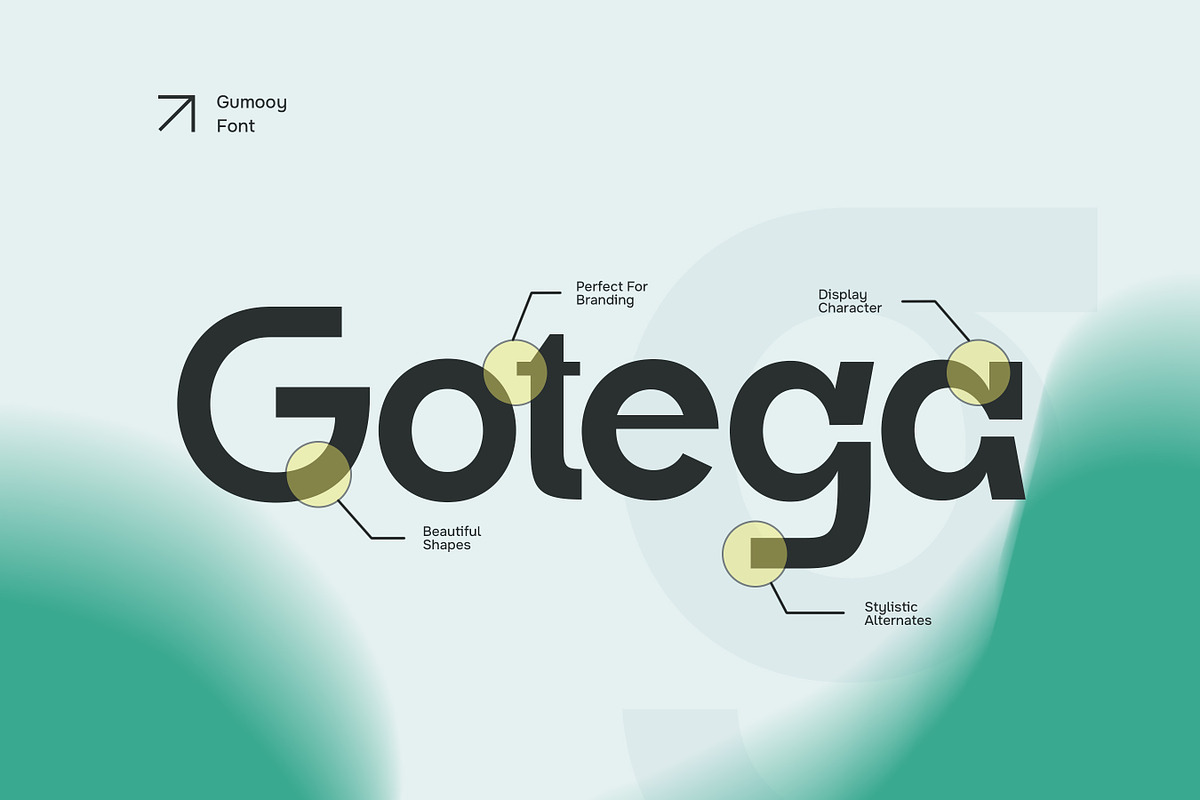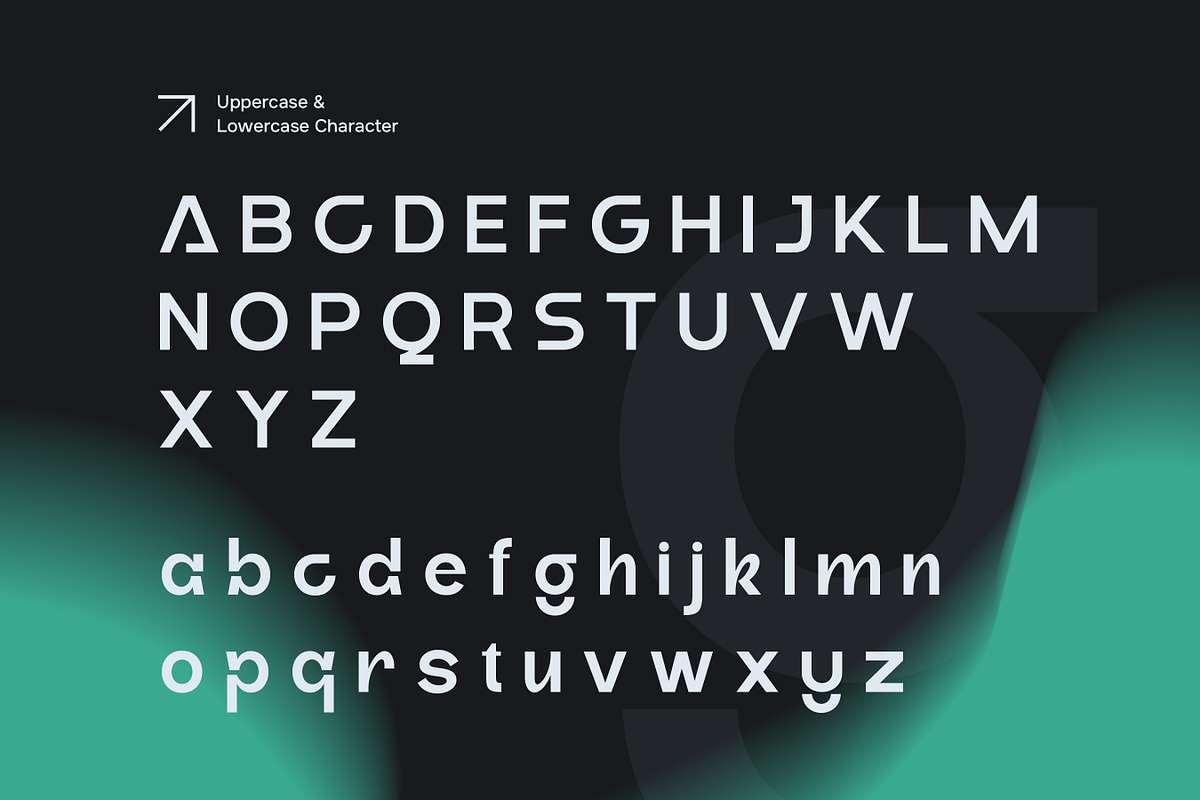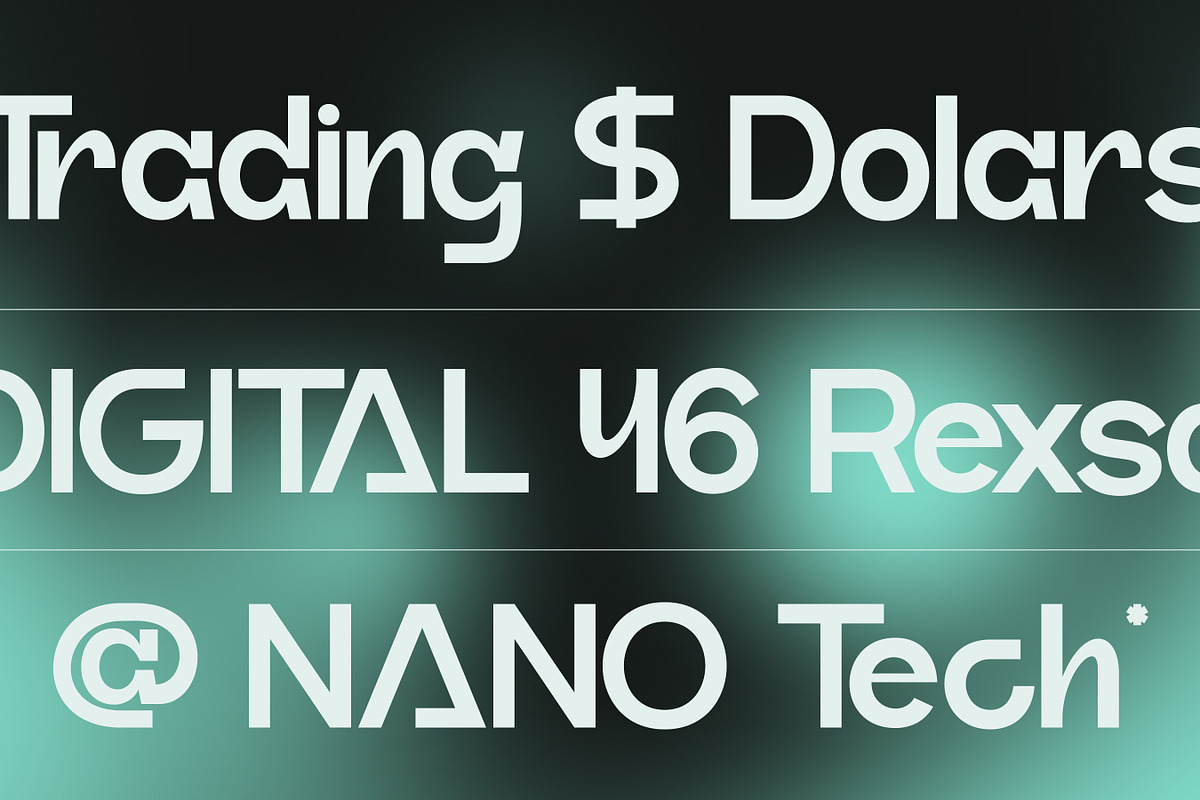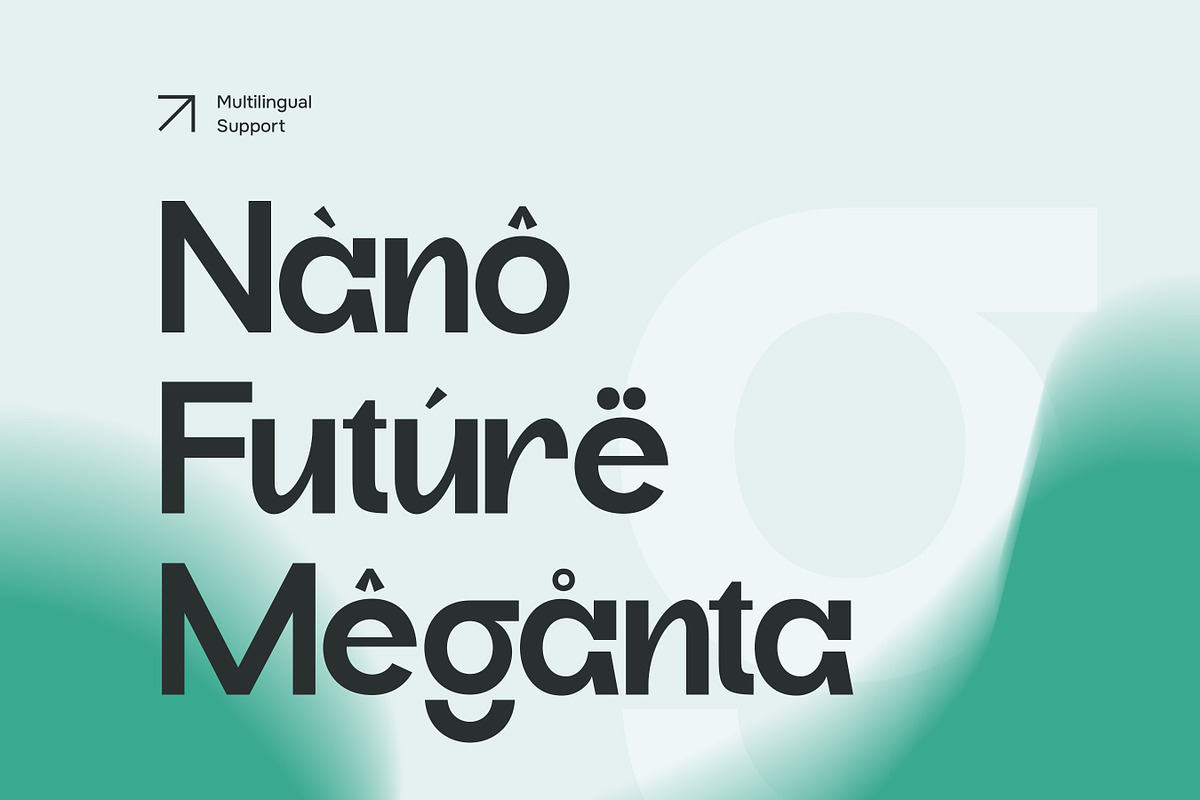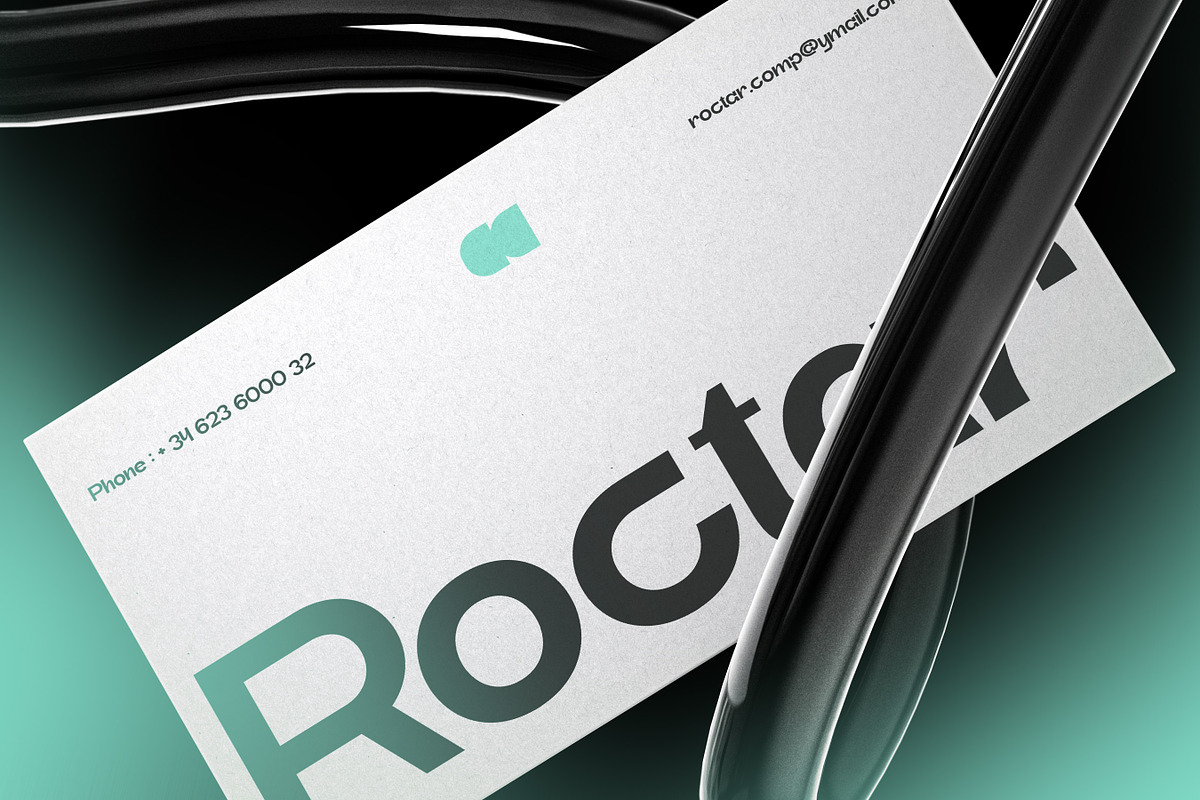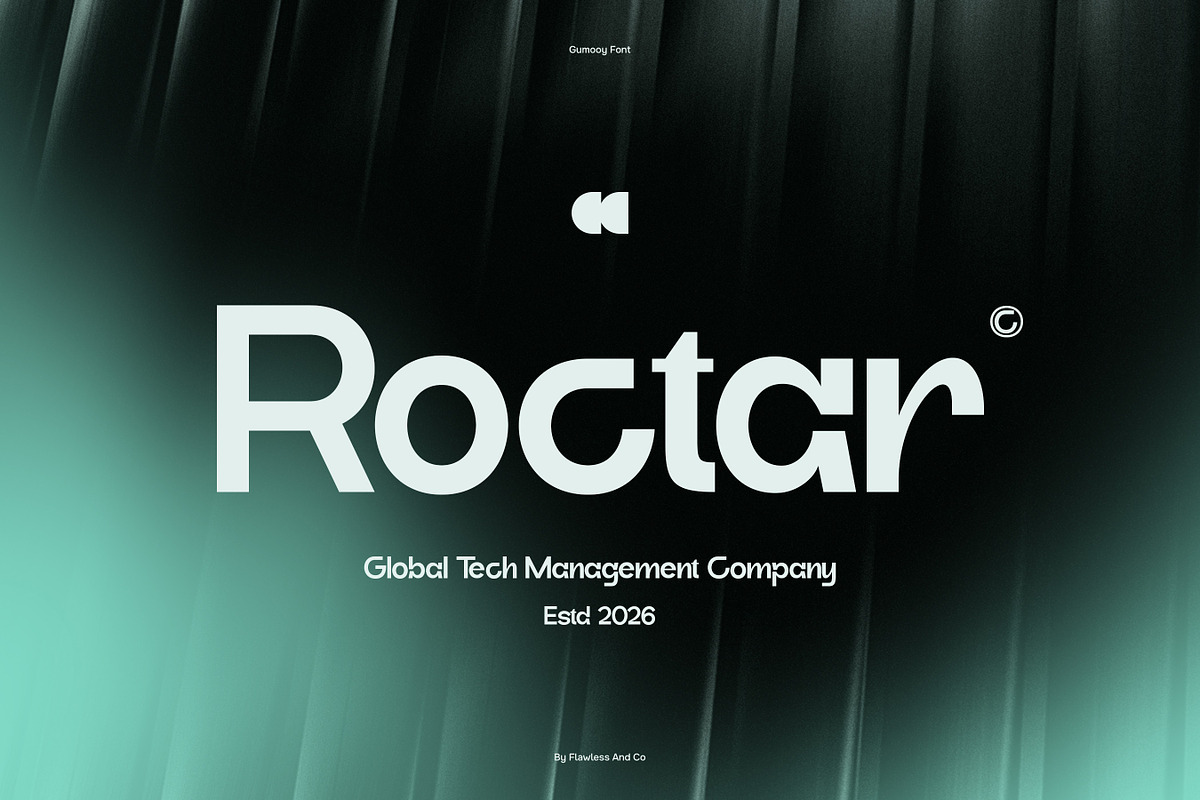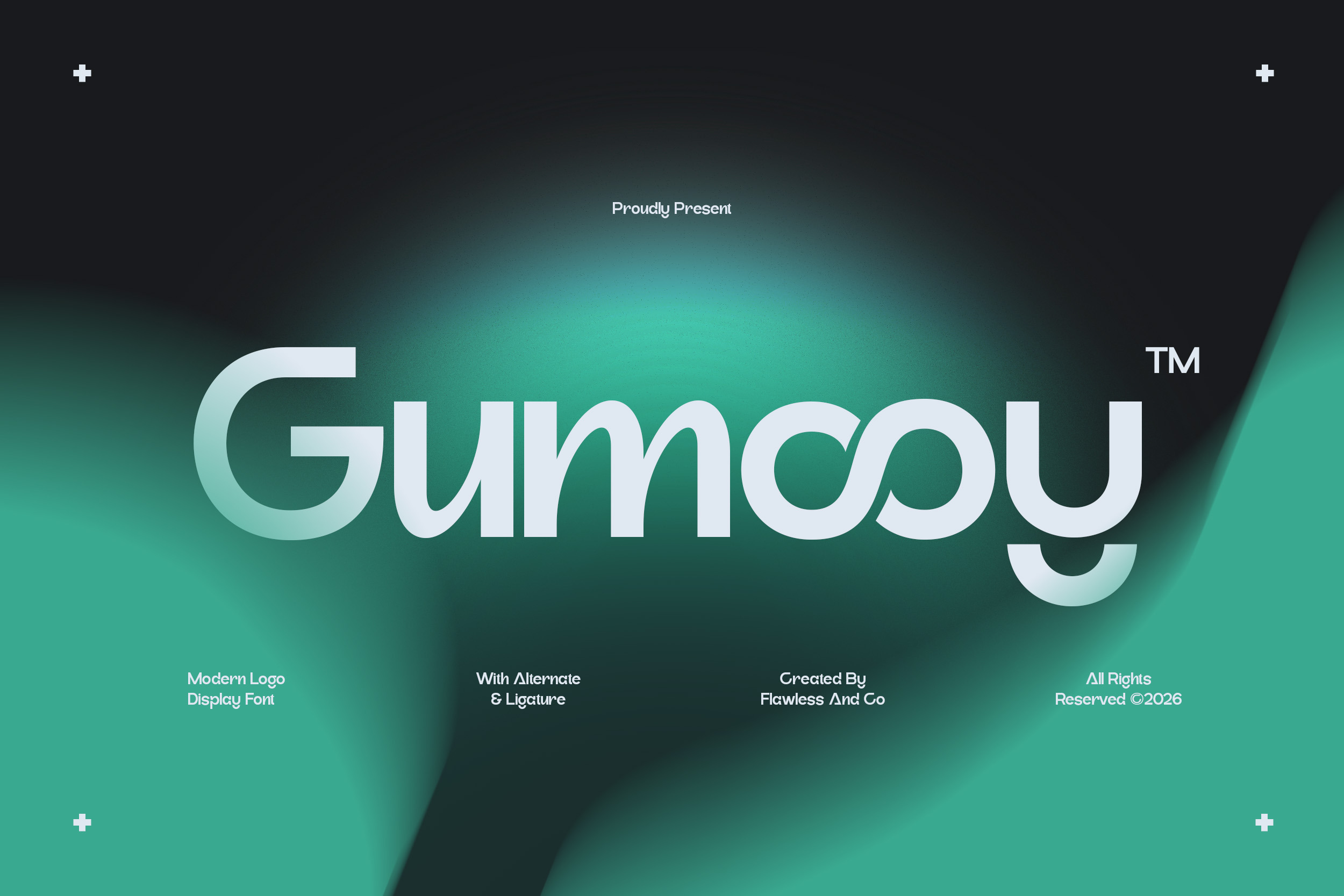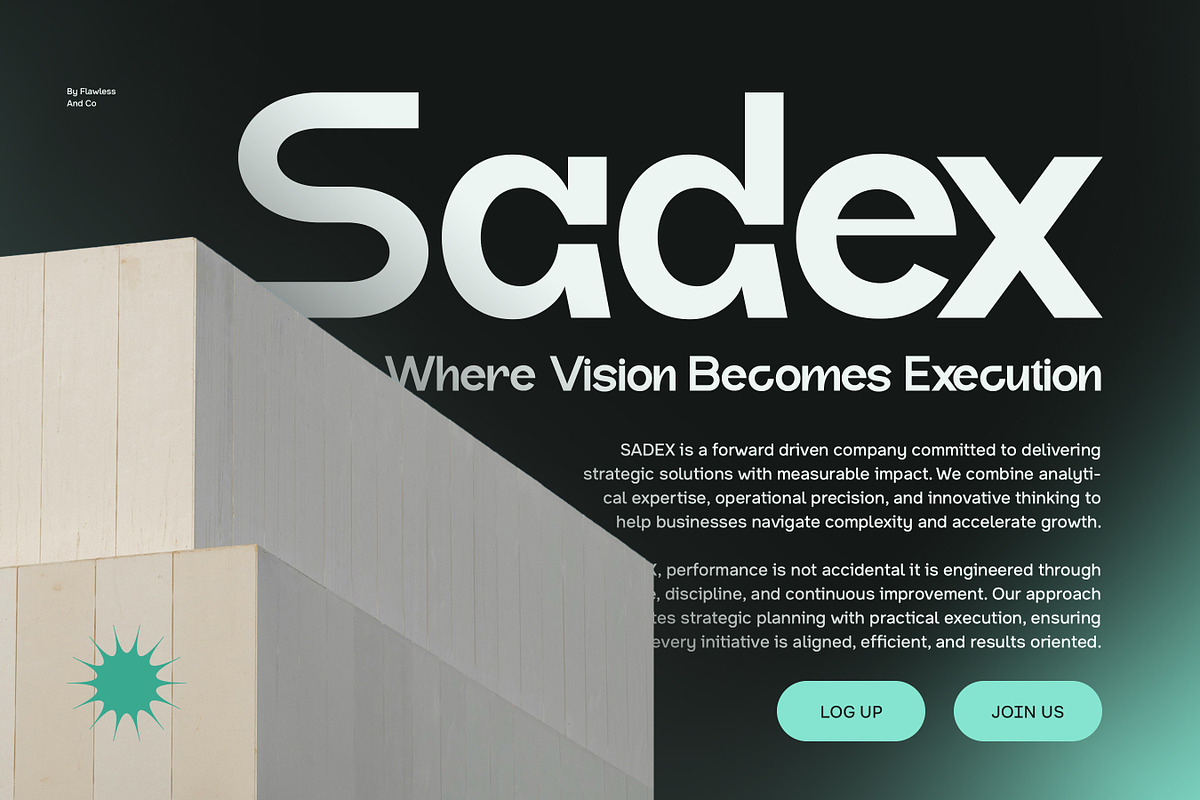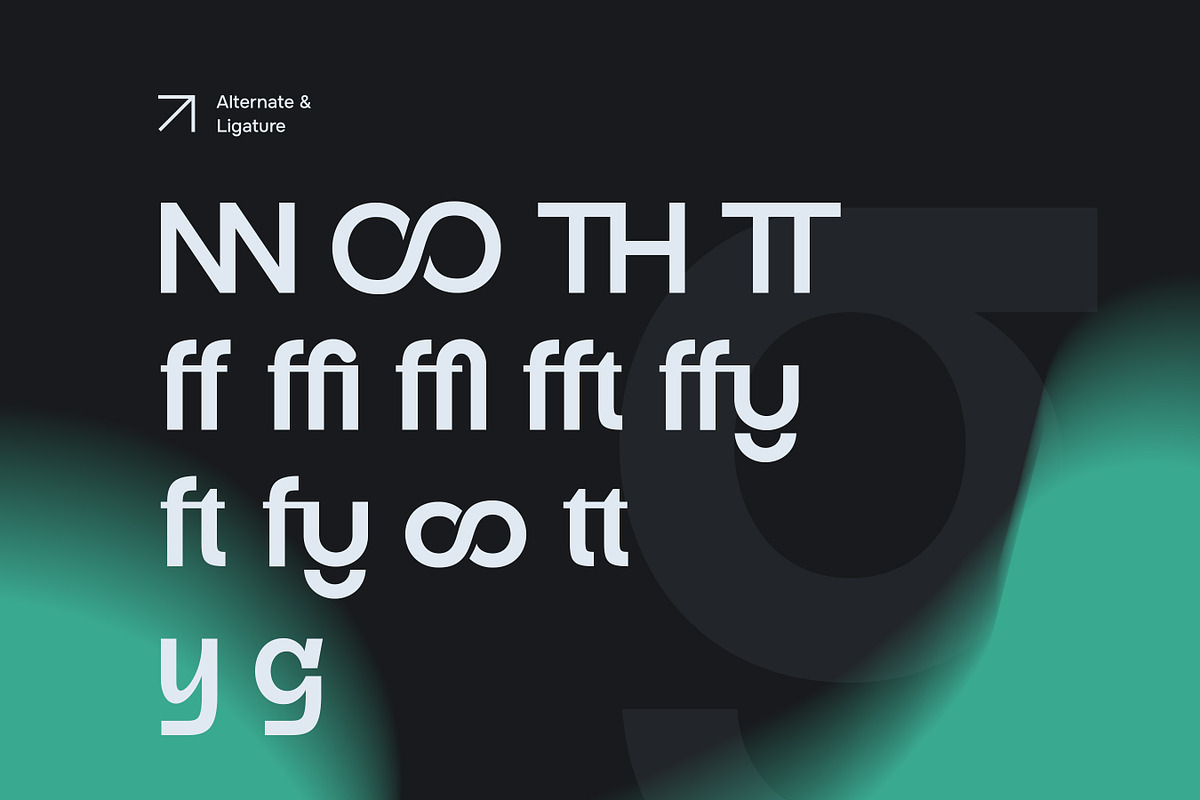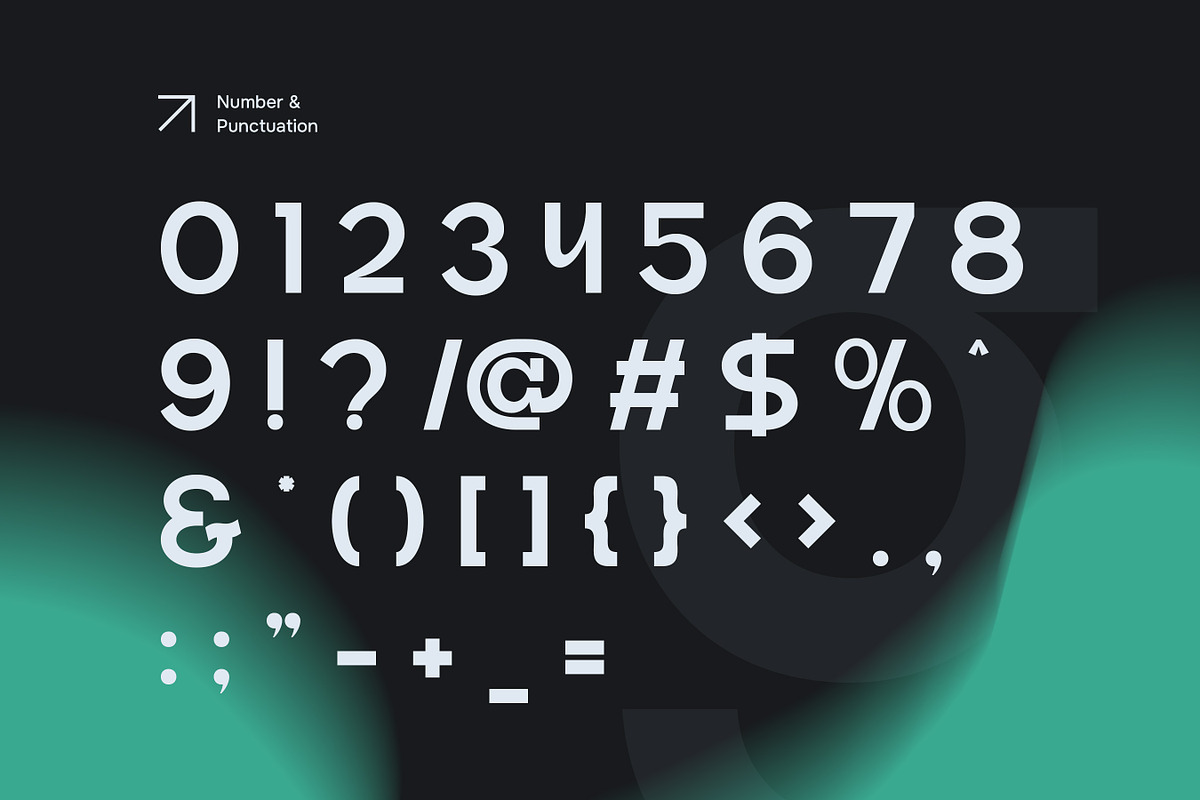
Gumooy - Modern Sans Display Font
Gumooy – Modern Sans Display Font
Gumooy is a modern sans display font that brings a fresh and stylish look to contemporary design projects. Designed with beautiful shapes and confident letterforms, Gumooy delivers a strong visual impact while maintaining a smooth and modern appearance. This font is perfect for designers who want a modern display typeface that feels both simple and distinctive. Its balanced structure and modern aesthetic make it highly versatile, allowing it to work beautifully across branding, editorial layouts, and promotional designs.
Who Should Use Gumooy?
Gumooy is perfect for designers, creatives, and brands who want a modern sans display font that adds personality and visual strength to their designs.
Suitable For:
- Modern logo and branding design
- Posters and promotional graphics
- Editorial headlines and magazines
- Advertising and marketing materials
- Social media graphics
- Website headers and digital design
- Packaging and product labels
- Creative display typography